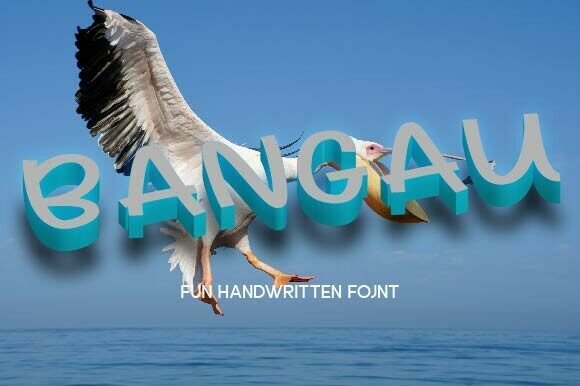
Bangau Font: The Ultimate Display Font for Unique Designs
In the world of typography, fonts play a crucial role in making or breaking a design project. A font can either elevate a design to new heights or leave it looking dull and uninteresting. If you’re looking for a font that can add a touch of charm, whimsy, and joy to your designs, look no further than Bangau Font. This display font is an embodiment of all things delightful and is sure to transform any design project from commonplace to absolutely unique.
What is Bangau Font?
Bangau Font is a display font that exudes a refreshing, powerful punch. Its individualistic characters intrigue and inspire, effortlessly elevating your design projects. This font is perfect for designers who want to add a touch of personality to their work. With Bangau Font, you can create designs that are not only visually appealing but also unique and memorable.
The Charm of Bangau Font
Bangau Font is more than just a font – it’s an experience. Its charm lies in its ability to balance simplicity with strength, playfulness with impact, and ordinariness with extraordinariness. This font is designed to make your designs stand out from the crowd, and it does so with ease. Whether you’re working on a branding project, a website design, or a marketing campaign, Bangau Font is the perfect choice.
Key Features of Bangau Font
Bangau Font comes with a range of features that make it a versatile and practical choice for designers. Some of its key features include:
- Universe of Extraordinary Glyphs: Bangau Font provides a universe of extraordinary glyphs that are simple to integrate into your designs. These glyphs add an extra layer of creativity and personality to your work.
- Chic Alternates: The font comes with chic alternates that allow you to experiment with different styles and looks. These alternates are easy to use and can add a touch of sophistication to your designs.
- Special Features: Bangau Font boasts an impressive array of special features that make it a standout font. These features include ligatures, stylistic alternates, and more.
Why Choose Bangau Font?
So, why choose Bangau Font over other fonts? Here are a few reasons:
- Unique and Memorable: Bangau Font is designed to create unique and memorable designs. Its individualistic characters ensure that your designs stand out from the crowd.
- Versatile: The font is versatile and can be used for a range of design projects, from branding and website design to marketing and advertising.
How to Use Bangau Font
Using Bangau Font is easy. Here are a few tips to get you started:
- Pair it with Other Fonts: Bangau Font pairs well with other fonts, so don’t be afraid to experiment with different combinations.
- Experiment with Glyphs: The font’s glyphs are a key feature, so make sure to experiment with them to add an extra layer of creativity to your designs.
- Use it for Headings: Bangau Font is perfect for headings and titles, so use it to add a touch of personality to your designs.
In conclusion, Bangau Font is a display font that embodies charm, whimsy, and joy. Its individualistic characters intrigue and inspire, effortlessly elevating your design projects. With its universe of extraordinary glyphs, chic alternates, and special features, Bangau Font is the perfect choice for designers who want to create unique and memorable designs. So, why settle for ordinary when you can have extraordinary? Choose Bangau Font for your next design project and experience the power of typography.